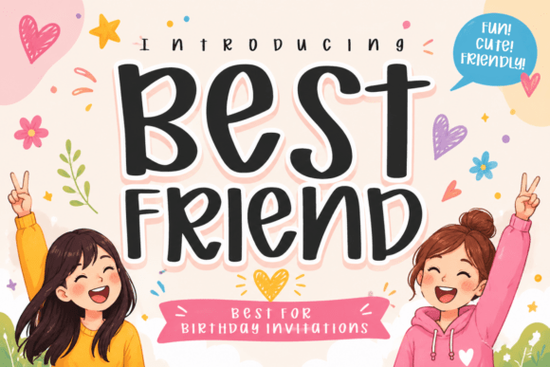
The Best Friend Font is a hand-drawn, thick, and playful typeface that brings warmth and personality to any creative project. Whether you're designing greeting cards, crafting social media posts, or building a brand for a small business, this cheerful font captures a feeling of love and friendship that's hard to miss. It's the kind of typeface that makes people smile before they even read the words.
If you've been looking for a friendly, approachable font that doesn't feel overly polished or corporate, this one deserves a closer look. Below, I'll walk through what makes it stand out, who it's best for, and how to use it in real projects.
What Does the Best Friend Font Look Like?
This font has a thick, rounded style that feels hand-lettered. The strokes are bold but soft, giving it a cozy, approachable character. It sits firmly in the "cute and fun" category perfect for projects that need a personal, human touch.
The letterforms are slightly uneven in the way real handwriting would be, which adds to its charm. It works beautifully at larger sizes where those hand-drawn details really show through.
Key style traits:
- Thick, rounded strokes that feel warm and inviting
- Hand-drawn irregularity for an organic, authentic look
- Playful and friendly tone no sharp edges or rigid geometry
- High readability at display sizes for headings and titles
Who Is This Font a Good Fit For?
The Best Friend font works well for anyone creating designs that need to feel warm, personal, and approachable. Here are some specific use cases:
- Greeting card designers birthdays, friendship cards, thank-you notes
- Print-on-demand sellers t-shirts, mugs, tote bags with positive messages
- Social media creators Instagram quotes, story graphics, YouTube thumbnails
- Small business owners bakeries, gift shops, children's brands
- Crafters and hobbyists scrapbooking, stickers, planner decorations
If your audience responds to cheerful, feel-good messaging, this font fits naturally into your toolkit.
What Kinds of Projects Work Best With a Hand-Drawn Playful Font?
Hand-drawn fonts like this one are especially popular in projects where you want to create an emotional connection. Think about the kinds of designs that show up on color palette inspiration boards, in boutique shops, or on Instagram accounts with a cozy, personal aesthetic.
Some specific project ideas:
- Wedding and event invitations with a relaxed, informal feel
- Children's book covers or classroom materials
- Product packaging for handmade or artisan goods
- Blog headers and website banners for lifestyle brands
- DIY party decorations banners, cupcake toppers, favor tags
Pairing it with a simple, clean sans-serif for body text usually gives the best results. The playful style does the heavy lifting for headlines while the cleaner font keeps longer text readable.
How Does It Compare to Other Playful Display Fonts?
Creative Fabrica has a solid collection of display fonts if you're exploring different moods. For example, a doodle-inspired cartoon typeface might be a better fit if your project leans more toward kids' activities or coloring pages. It has that sketchy, illustrated quality that works well for educational materials.
On the other hand, if you want something with a retro twist, a groovy retro-style font brings a completely different energy think 70s-inspired designs with flowing, expressive letterforms.
For projects that need a bit more elegance without losing the hand-drawn feel, a refined display typeface like Spizelmore offers a more sophisticated alternative while keeping things interesting.
If you're working on something bold and eye-catching like posters or merchandise a distressed bold display font can give your design that worn, textured look that's popular in streetwear and urban branding.
And for a softer, cream-toned aesthetic, a smooth Vanilla Cream display font delivers an inviting style that pairs well with pastel color palettes.
Best Friend really shines when you want something that feels genuinely warm and personal not too quirky, not too refined. It hits that sweet spot between playful and versatile.
What Should You Pair It With?
Because this font is thick and attention-grabbing, it works best as a headline or display font. For body text and smaller details, consider pairing it with:
- A clean sans-serif like Montserrat or Open Sans for modern projects
- A simple serif like Lora or Merriweather for slightly warmer body text
- A light script font for accent words or secondary callouts use sparingly
A good rule of thumb: one playful font per design. If your headline is already doing the personality work, keep everything else understated.